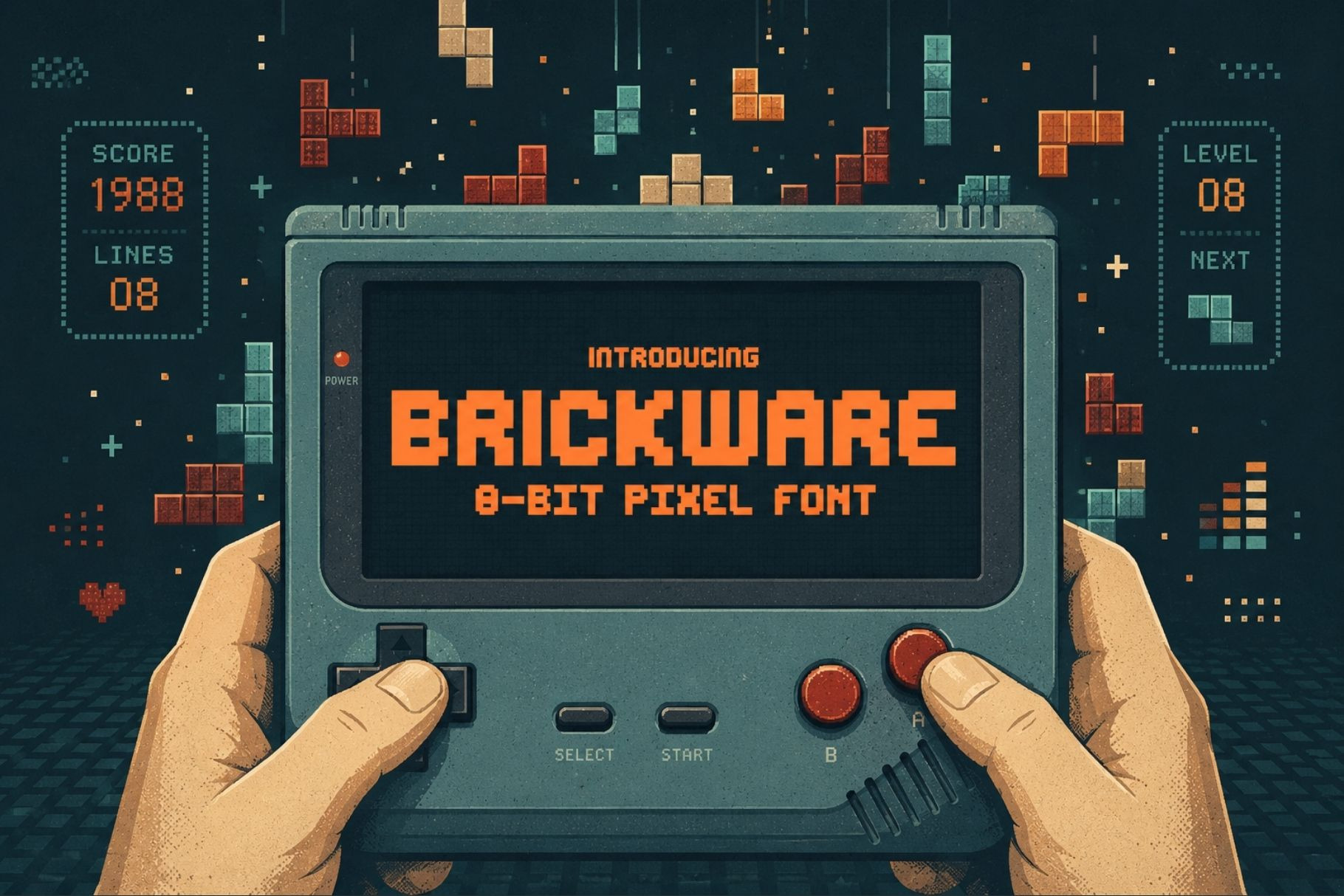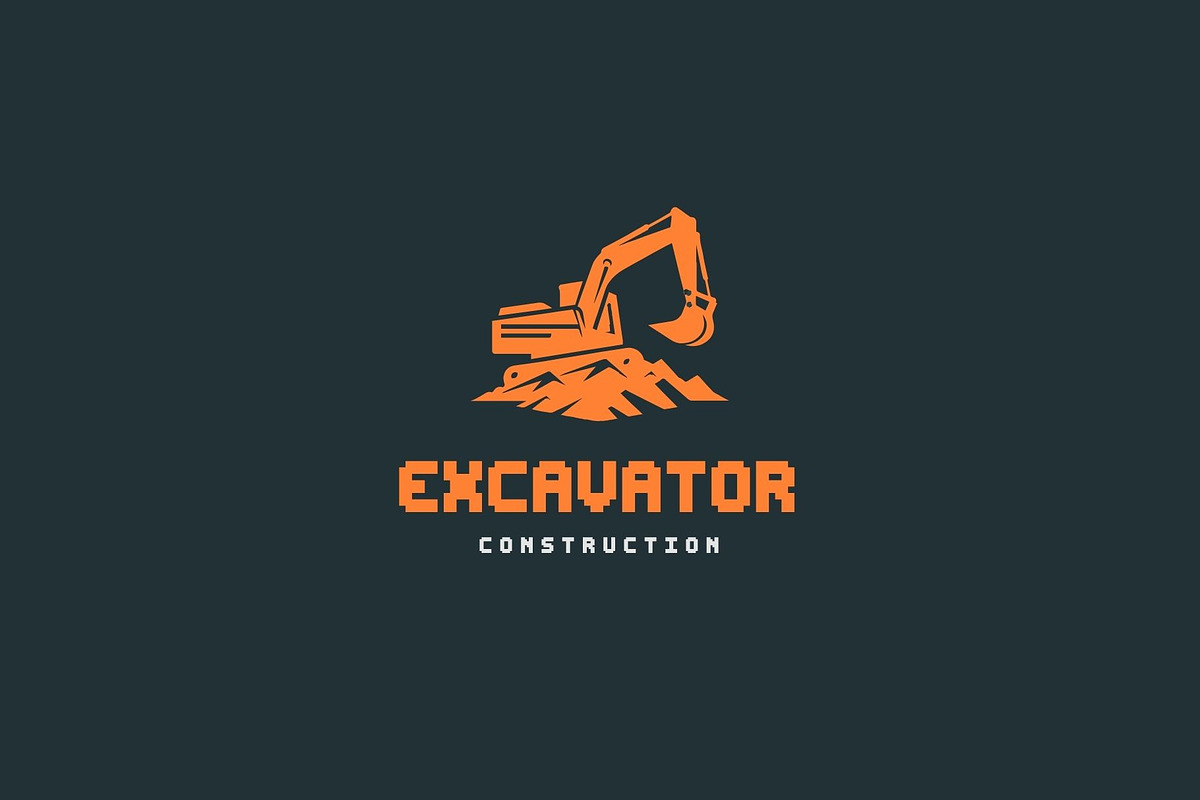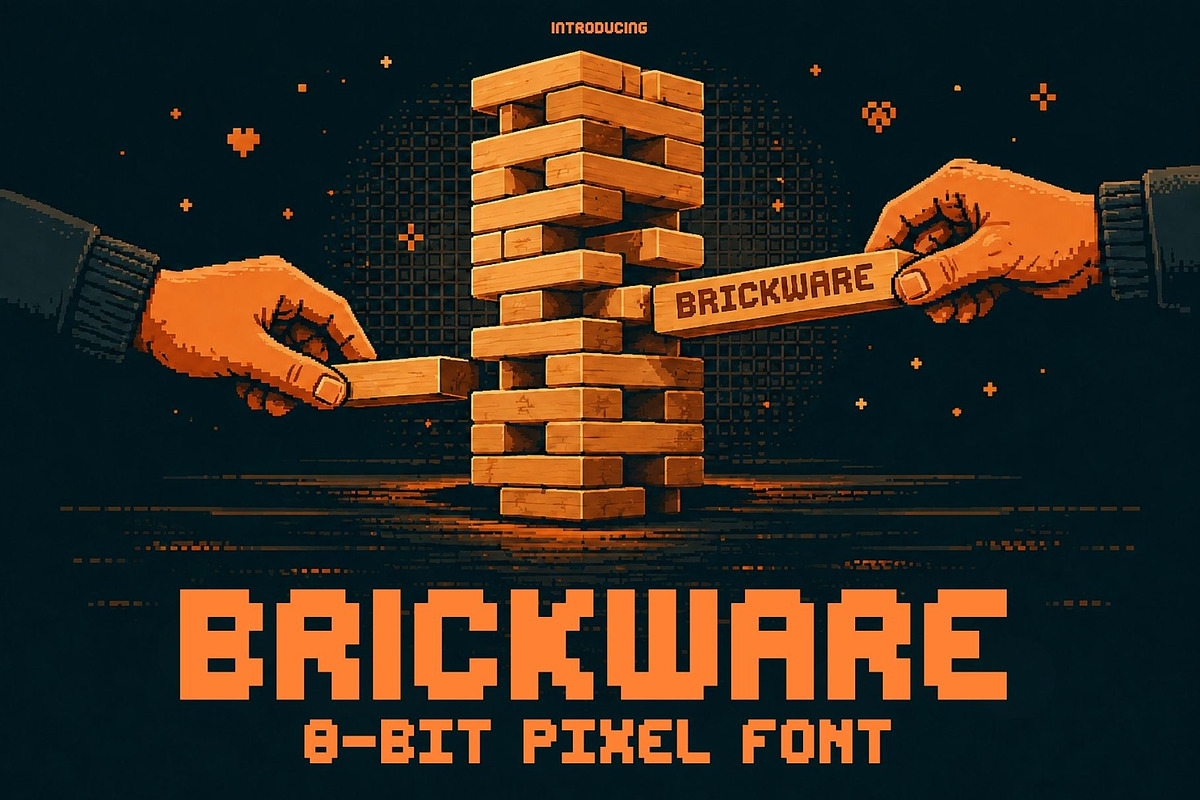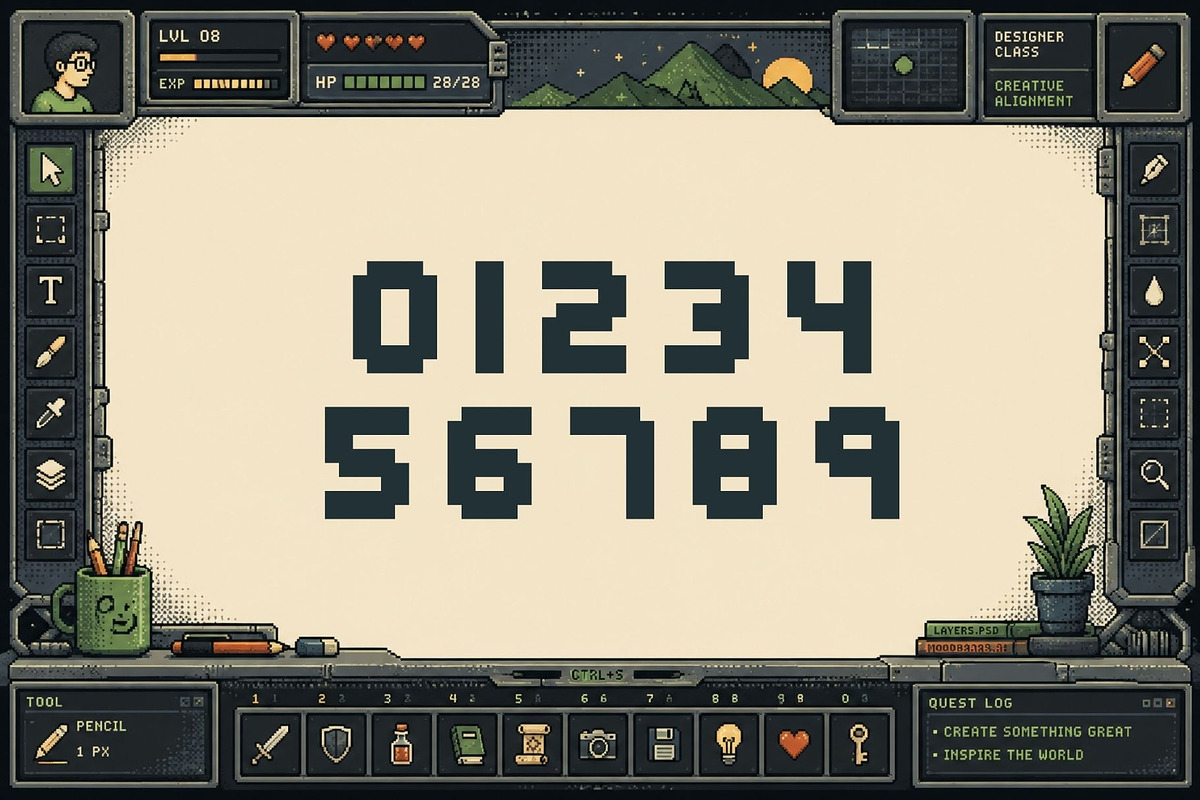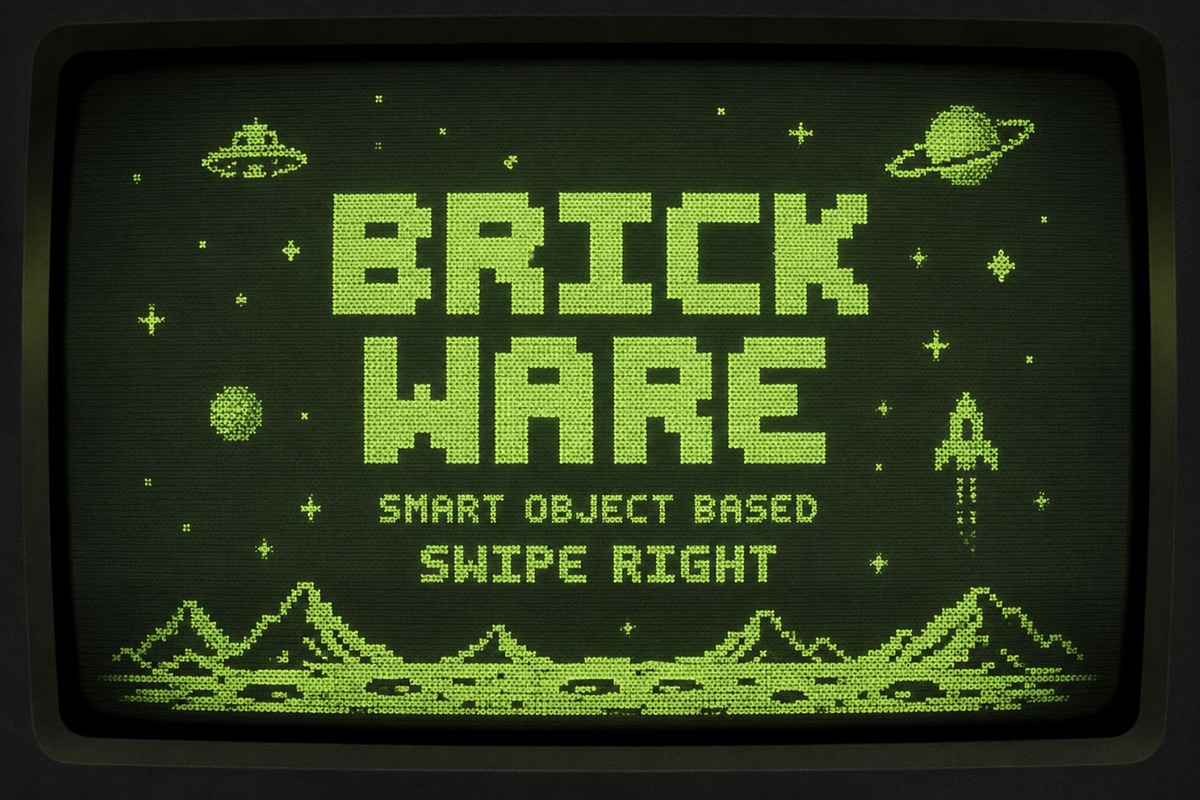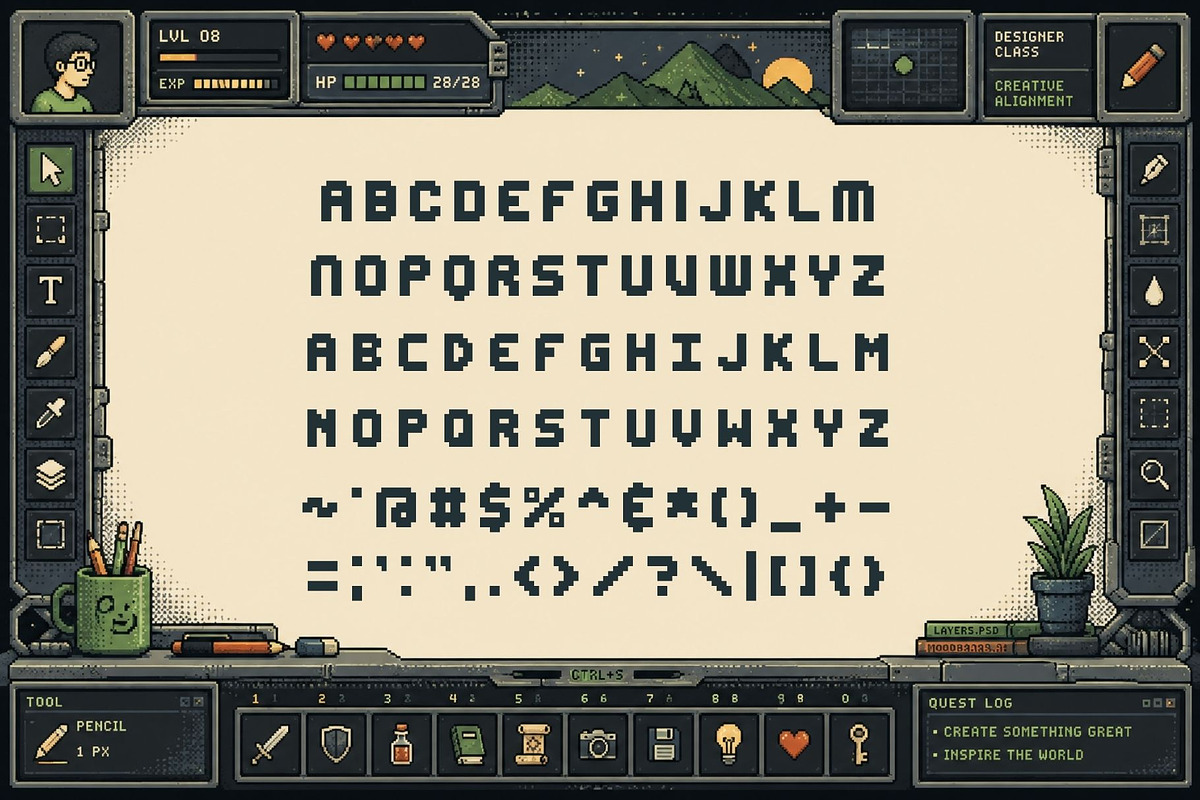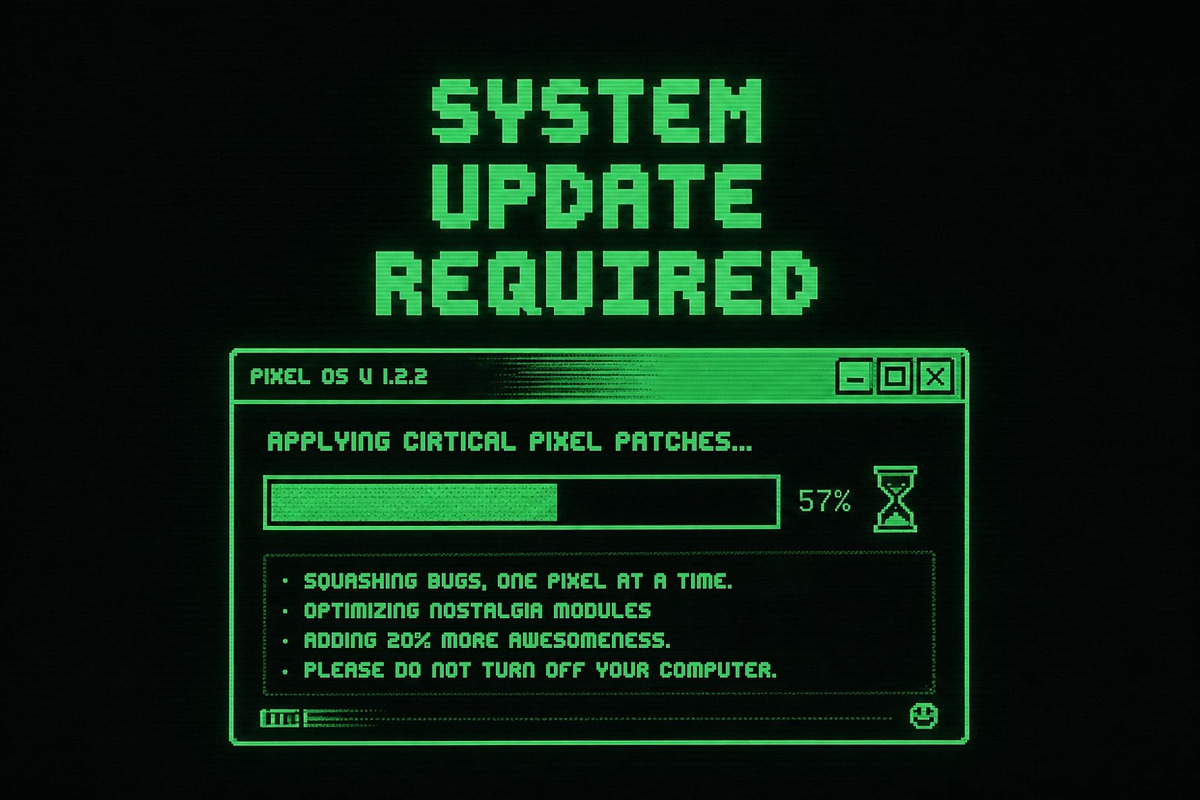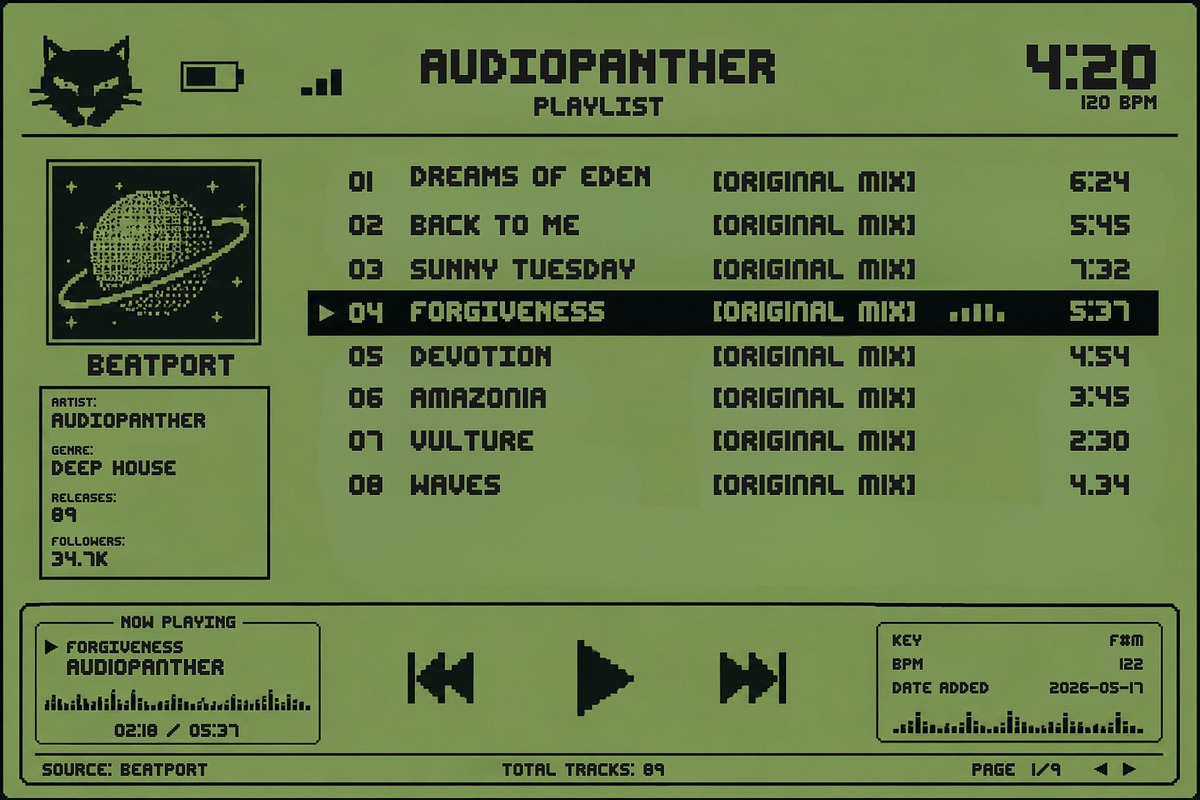
Brickware - Thick Pixel Font
Meet Brickware, a thick, chubby pixel font built to make every word feel bold, playful, and impossible to ignore.
Inspired by chunky bitmap lettering, retro game graphics, block-based interfaces, and early digital design, Brickware takes classic pixel typography and pushes it into a heavier, friendlier direction. Its wide proportions, sturdy shapes, and compact blocky construction give it a strong visual presence while keeping the personality fun rather than overly technical.
Brickware is made for designs that need impact. It shines in posters, headlines, user interfaces, game graphics, branding, advertisements, websites, social media, packaging, merchandise, album covers, editorial layouts, and bold graphic design projects.
Its chunky forms are especially effective at large sizes, making it a great choice for title cards, hero text, gaming screens, digital campaigns, event graphics, and eye-catching promotional artwork. The font can feel nostalgic and arcade-inspired, but it also works beautifully in modern tech, creative, startup, and experimental design.
Whether you're building a playful game interface, designing a loud poster, creating a retro-inspired brand, or giving a digital project a more distinctive visual identity, Brickware delivers pixel typography with weight, charm, and serious attitude.
Chunky. Digital. Playful. Built to stand out.